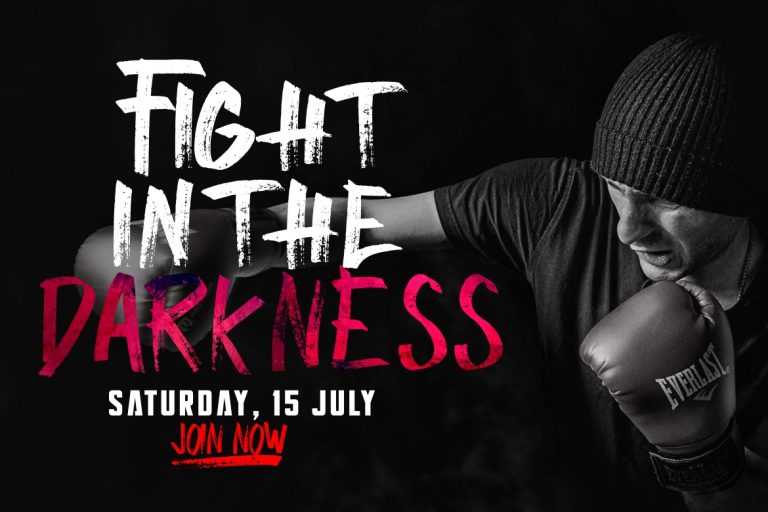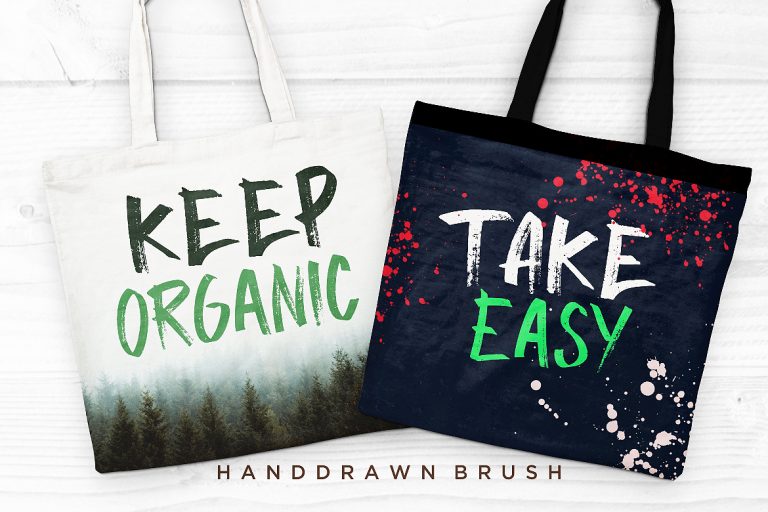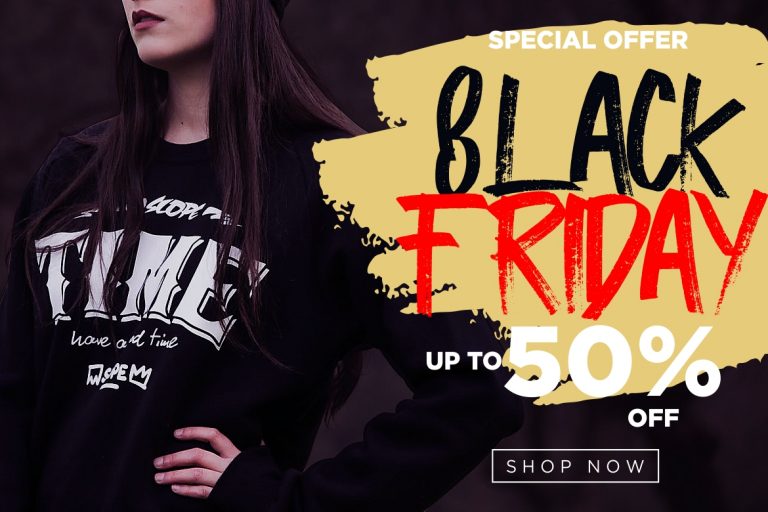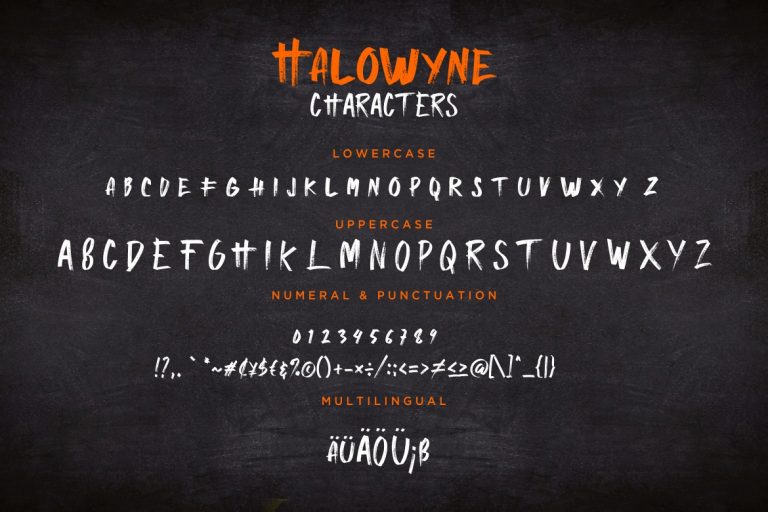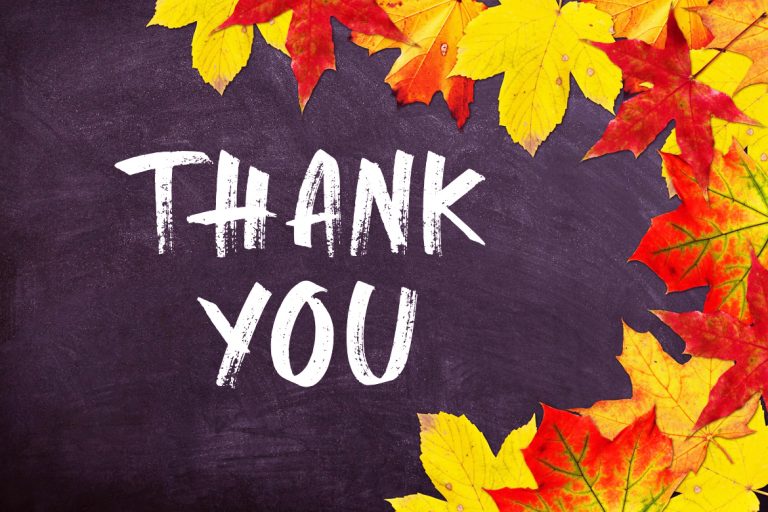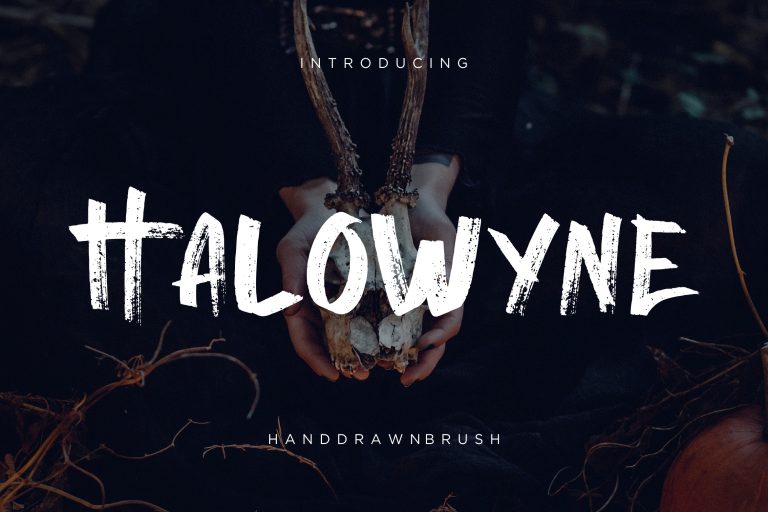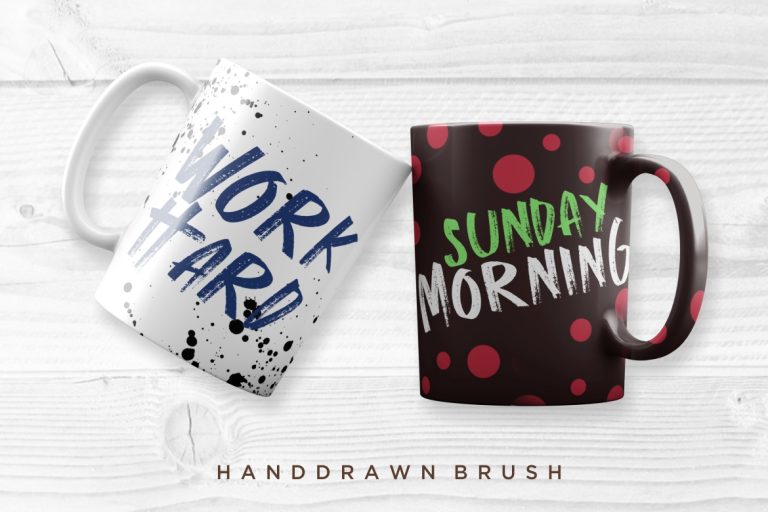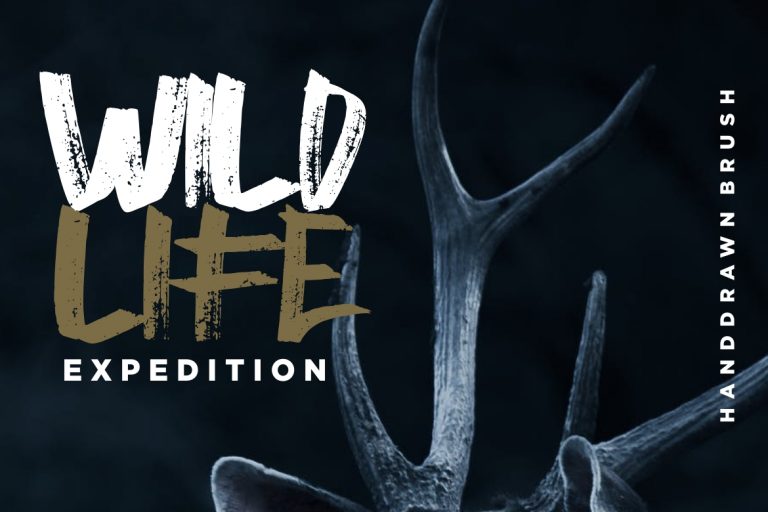
Halowyne is hard handdrawn brush font with bold style.
Halowyne is perfect for branding projects, logo, wedding designs, social media posts, advertisements, product packaging, product designs, label, photography, watermark, invitation, stationery and any projects that need handwriting taste.
• Fonts include multilingual support for; ä ö ü Ä Ö Ü ß ¿ ¡
Halowyne Handdrawn Brush